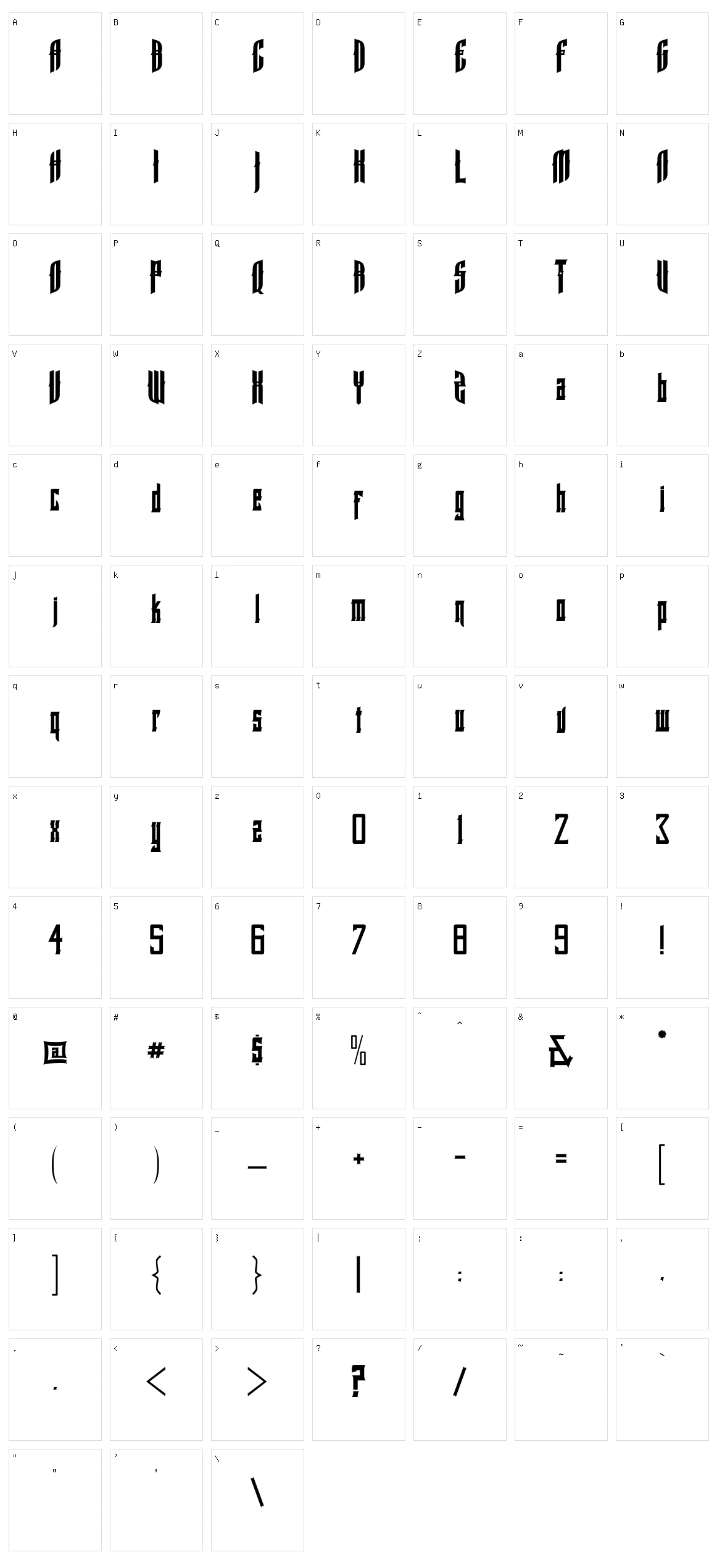
The free font Spartanburg SC is carefully designed by Pilaster Davy, showcasing a thoughtful balance of creativity and usability and falls under the Retro font style. When you download the ZIP file, it contains only 11.95 KB of font files, making it lightweight and quick to download. Please review the license details below to understand permitted usage and distribution rights. If license information is not available, we recommend using this font for personal projects only or contacting the author directly for commercial usage permissions.